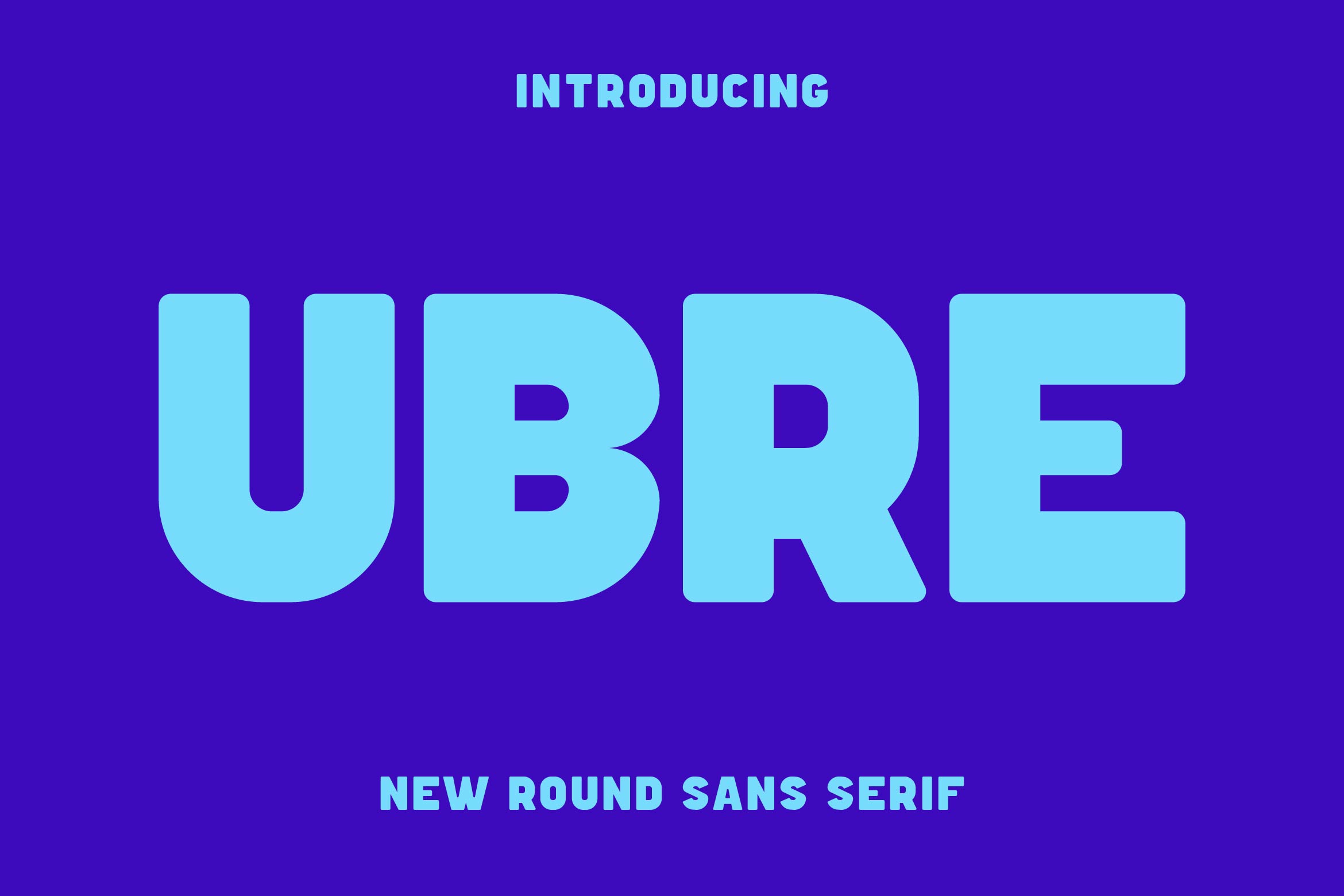
- Ubre Rounded Sans Serif Font
Ubre is a smooth and contemporary rounded sans serif font designed to bring warmth, friendliness, and clarity to your typography. With its balanced proportions, soft edges, and clean geometric structure, Ubre is ideal for branding, packaging, editorial layouts, UI/UX design, social media graphics, and digital interfaces.
Its rounded forms create a welcoming and approachable feel while maintaining excellent readability across various sizes. Ubre is perfect for lifestyle brands, children’s products, tech startups, and creative projects seeking a modern yet human touch.
The font includes uppercase and lowercase letters, numerals, punctuation, multilingual support, and stylistic alternates for versatile customization.
Bring a soft, modern charm to your designs with Ubre — the rounded sans serif that blends simplicity, friendliness, and timeless appeal.